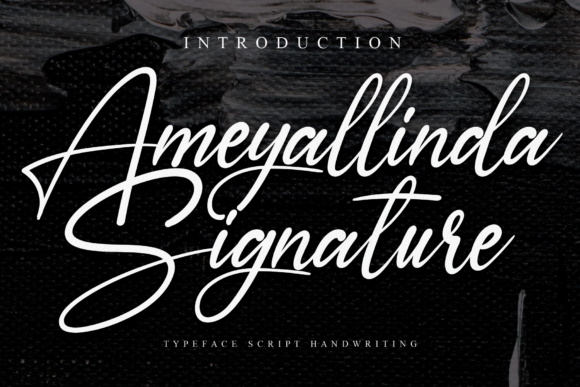
The Ameyallinda Signature Font: A Modern Handwritten Gem
I’ll never forget the time I was working on a wedding invitation project, and I just couldn’t find the perfect font to capture the couple’s elegant yet playful style. I scoured the internet, tried out dozens of fonts, but nothing seemed quite right. That was until I stumbled upon the Ameyallinda Signature font. It was love at first sight! 💕
Ameyallinda Signature is a modern handwritten font that has quickly become a staple in my design toolkit. Its incredibly versatile style makes it perfect for creating gorgeous wedding invitations, beautiful stationary art, eye-catching social media posts, and so much more!
- ✨ Elegant yet playful style that’s perfect for a wide range of design projects
- ✅ Extensive character set, including OpenType features and glyphs
- ✅ Perfect for creating beautiful wedding invitations, stationary art, and social media posts
While Ameyallinda Signature is an amazing font, it’s not perfect. Here are a few things to keep in mind:
- ⚠️ Some users may find the font a bit too ornate for very casual designs
- 🤔 Limited availability of certain characters, such as non-English language support
The Story Behind Ameyallinda Signature
Ameyallinda Signature was designed by a talented type designer who wanted to create a modern, handwritten font that would capture the elegance and playfulness of everyday writing. The font is inspired by the beauty of handwritten script and the versatility of modern typography.
Q: What is Ameyallinda Signature?
Ameyallinda Signature is a modern handwritten font that’s perfect for creating gorgeous wedding invitations, beautiful stationary art, eye-catching social media posts, and more!
Q: Is Ameyallinda Signature easy to read?
Yes, Ameyallinda Signature is a highly legible font that’s perfect for use in a wide range of design projects, from body text to headings.